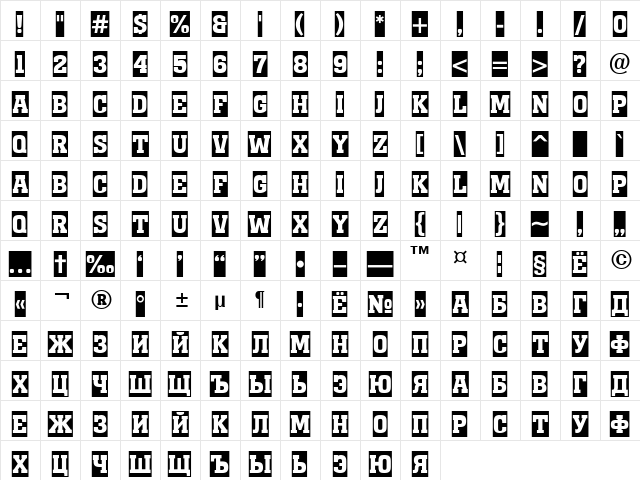
a_MonumentoTitulCm Bold
Design Context for a_MonumentoTitulCm Typeface
a_MonumentoTitulCm is a composed and adaptable typeface that performs quietly and consistently across a wide range of design contexts. The heavy weight commands attention and anchors typographic hierarchies.